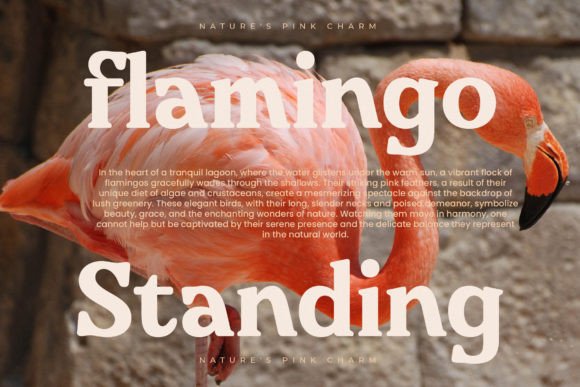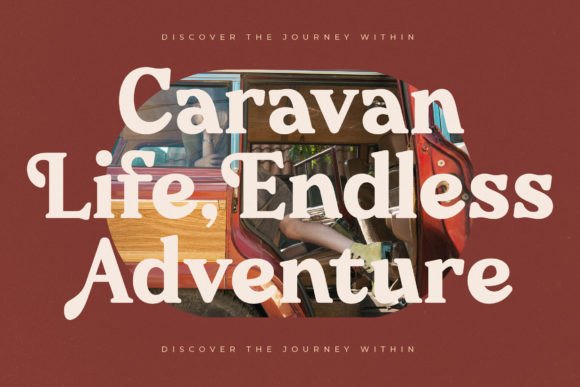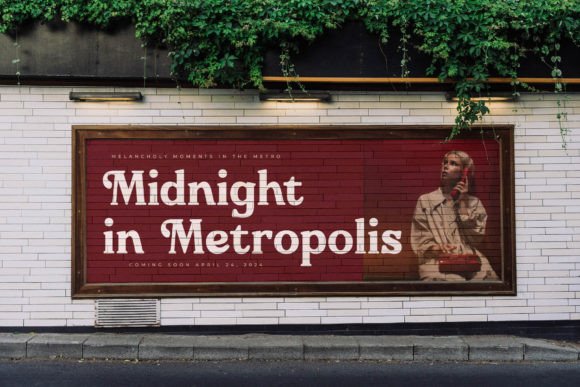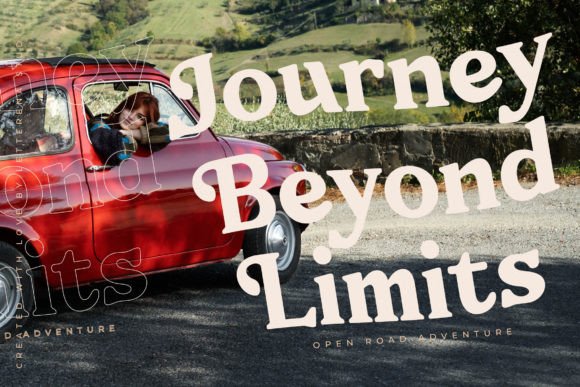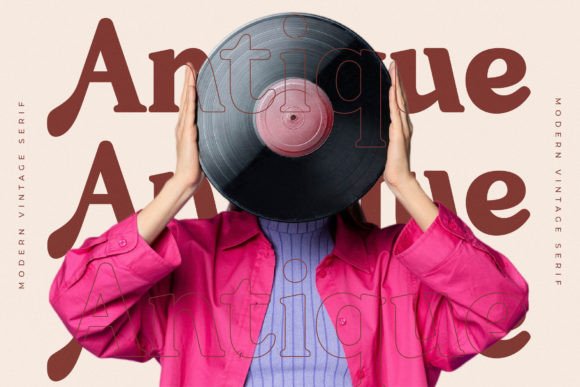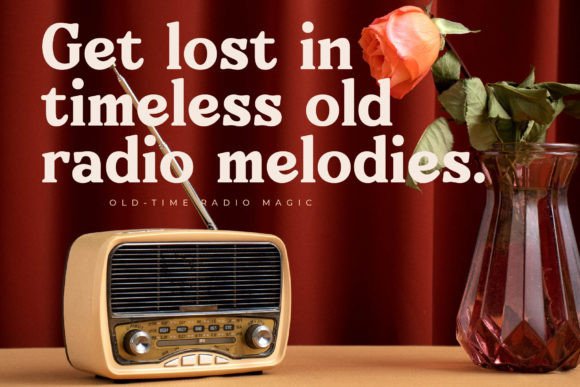
Bricks Antique Font: Elevate Your Designs with a Touch of Luxury
In the world of design, fonts play a crucial role in conveying the tone and aesthetic of a project. For those seeking a luxurious and vintage feel, the Bricks Antique font is an excellent choice. This modern vintage serif font is designed to add a touch of elegance and sophistication to various design projects, from logos and branding to packaging, posters, and more.
The Characteristics of Bricks Antique Font
Bricks Antique – Modern Vintage Serif is a luxury serif font that boasts a unique blend of classic and modern elements. Its intricate details and refined lines make it perfect for designs that require a high-end look. The font’s vintage feel is reminiscent of traditional serif fonts, while its modern twist ensures it remains fresh and relevant.
Uses of Bricks Antique Font
The versatility of Bricks Antique font makes it suitable for a wide range of design projects, including:
- Logos and branding projects: Create a lasting impression with a luxurious logo that exudes elegance and sophistication.
- Homeware designs: Add a touch of vintage charm to your homeware designs, such as ceramics, textiles, and furniture.
- Product packaging: Elevate your product packaging with a font that conveys luxury and high-end quality.
- Mugs, quotes, posters, and shopping bags: Add a touch of elegance to your print materials with Bricks Antique font.
- T-shirts, book covers, name cards, and invitation cards: Create stunning apparel and stationery with this luxurious font.
- Greeting cards, labels, and photography: Use Bricks Antique font to add a touch of sophistication to your greeting cards, labels, and photography projects.
- Watermark and special events: Use this font to create eye-catching watermarks and add a touch of luxury to your special events.
Why Choose Bricks Antique Font?
With so many fonts available, why choose Bricks Antique font for your design projects? Here are a few compelling reasons:
- Unique and distinctive: Bricks Antique font offers a unique blend of vintage and modern elements, making it stand out from more traditional serif fonts.
- Luxurious feel: The font’s intricate details and refined lines create a luxurious feel that’s perfect for high-end designs.
- Versatile: Bricks Antique font is suitable for a wide range of design projects, from logos and branding to packaging and posters.
- Elegant and sophisticated: This font exudes elegance and sophistication, making it perfect for designs that require a touch of luxury.
Tips for Using Bricks Antique Font
To get the most out of Bricks Antique font, here are a few tips to keep in mind:
- Use it sparingly: Due to its intricate details, Bricks Antique font works best when used sparingly. Use it for headings or titles to create a lasting impression.
- Pair it with a simple font: Pair Bricks Antique font with a simple, clean font for body text to create a striking contrast.
- Experiment with colors: Try experimenting with different colors to find the perfect combination that complements your design.
Bricks Antique – Modern Vintage Serif is a luxury serif font that’s perfect for designers and crafters seeking to add a touch of elegance and sophistication to their projects. Its unique blend of vintage and modern elements makes it suitable for a wide range of design projects, from logos and branding to packaging and posters. With its luxurious feel and versatile nature, Bricks Antique font is an excellent choice for anyone looking to elevate their designs.